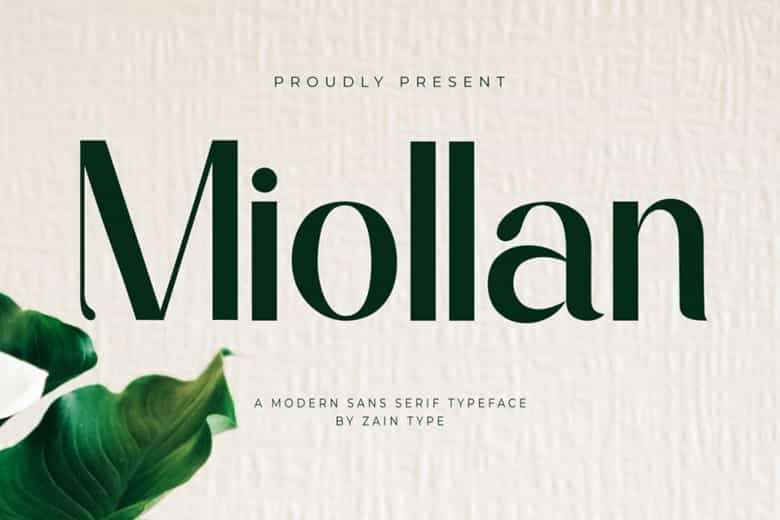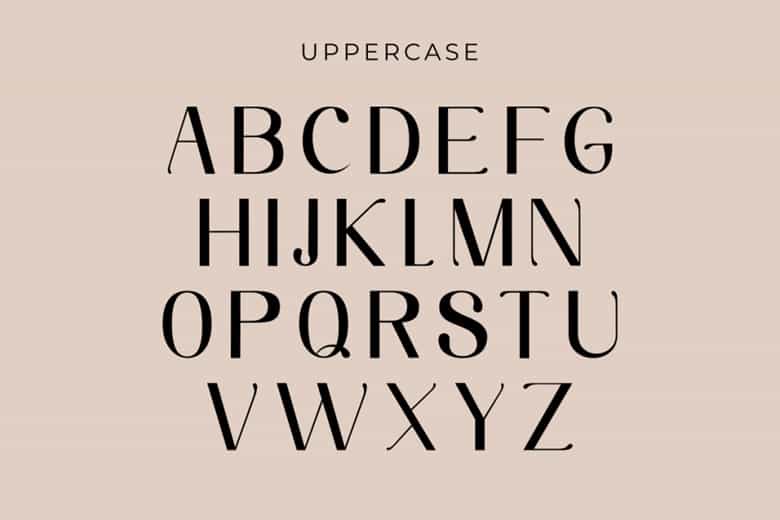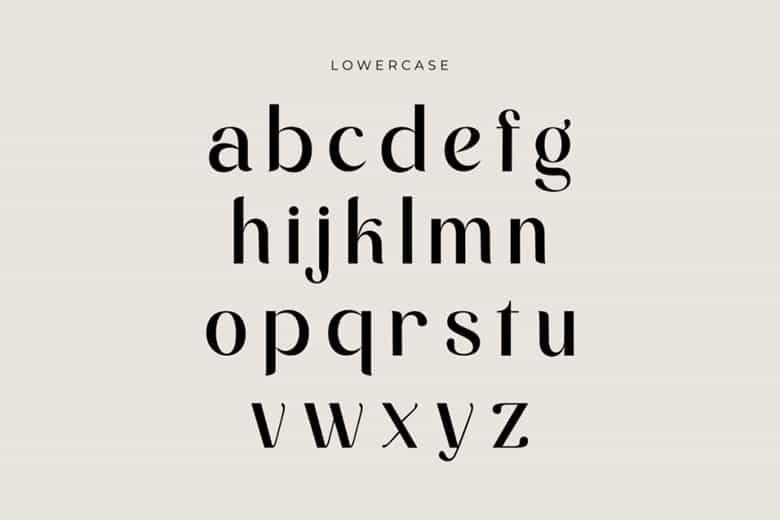
Miollan is a new modern sans serif typeface that has clean and minimalistic design but at the same time looks very elegant. Miollan is simple, elegant and very legible; it has clear lines and good proportions which together make it a great font for brand identity, websites and printed media.